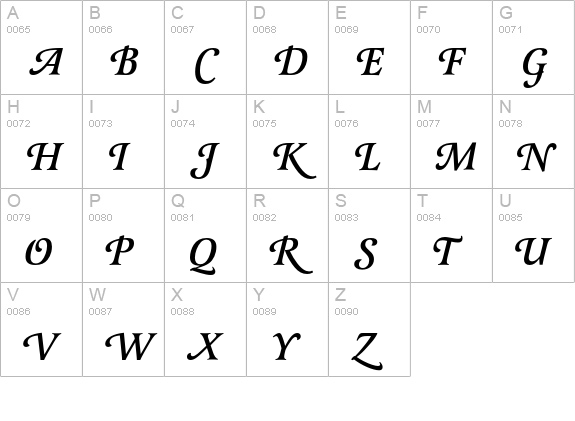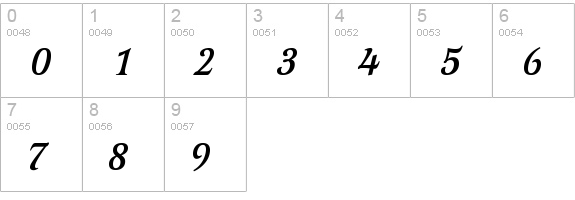
LatienneEF-MediumItalicSwC is an exquisite and elegant font that captivates with its graceful curves and delicate strokes. This medium italic version of LatienneEF exudes a sense of sophistication and charm, making it perfect for adding a touch of class to any design project. The medium weight of this font strikes the perfect balance between boldness and subtlety, ensuring that your text stands out while maintaining a sense of refinement. The italic style adds a dynamic and fluid quality to the letters, giving them an alluring and romantic appearance. With its timeless beauty, LatienneEF-MediumItalicSwC is a versatile font that can be used for a wide range of applications. From wedding invitations and event posters to branding materials and editorial layouts, this font adds an air of elegance and professionalism to any project. One of the best things about LatienneEF-MediumItalicSwC is that it is free to download at FontsMarket.com. This means that you can easily access and use this stunning font without any restrictions or limitations. Whether you are a professional designer or someone looking to add a touch of sophistication to your personal projects, LatienneEF-MediumItalicSwC is a font that you don't want to miss. So why wait? Download LatienneEF-MediumItalicSwC for free at FontsMarket.com and elevate your designs with its timeless beauty and effortless charm.